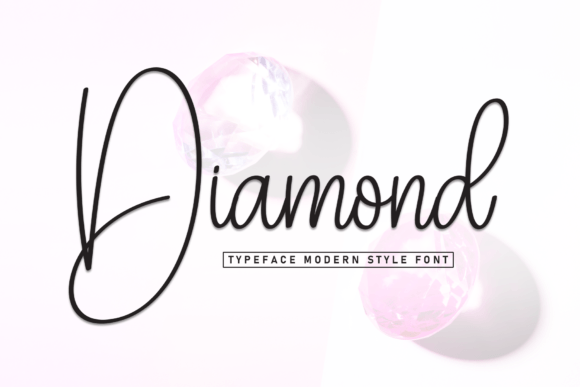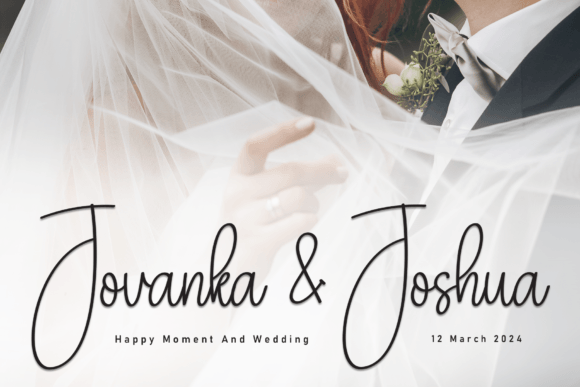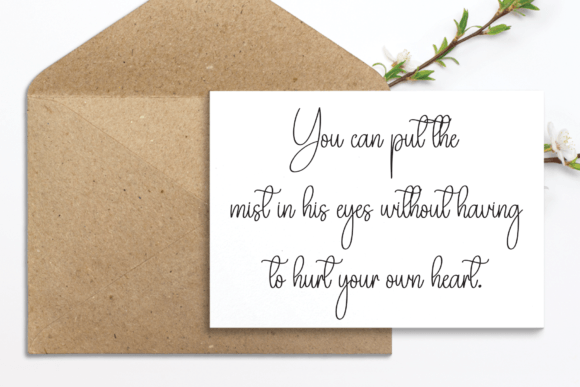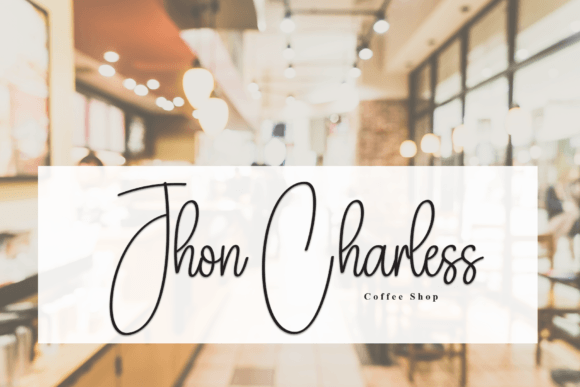
Diamond Font
About the Diamond Font
Welcome to the world of Diamond Font, a typeface that will inspire your next great project. Diamond is a sweet and friendly handwritten font. Cute and fun, this font is ideal for writing wedding invitations, cards, or any other design that might need a fun touch!
Diamond’s playful, informal style makes it perfect for projects requiring a friendly and approachable aesthetic. It excels in short text applications like headlines, logos, and social media graphics, where its handwritten charm shines. Avoid using Diamond for large blocks of text or body copy; its legibility suffers in extended passages.
Pairing Diamond with a clean sans-serif like Open Sans for body text creates a balanced design. For a more sophisticated look, consider pairing it with a classic serif font such as Garamond or a slightly more modern serif like Lora. These pairings contrast Diamond’s casual nature while maintaining visual harmony.
The overall personality of Diamond is undeniably cheerful and approachable. It is best suited for brands focusing on sweetness, happiness, or child-like wonder. Think confectionery, children’s products, or wedding-related businesses.
Diamond Font Usage Examples
Diamond Font Example